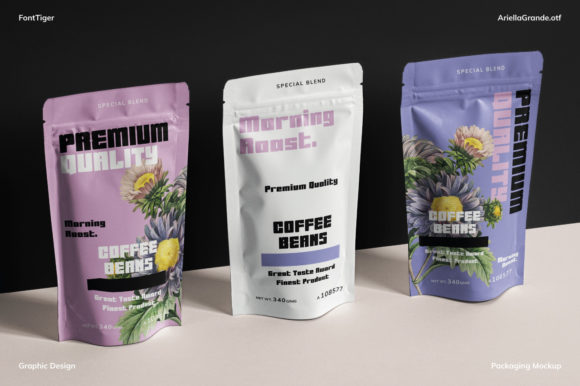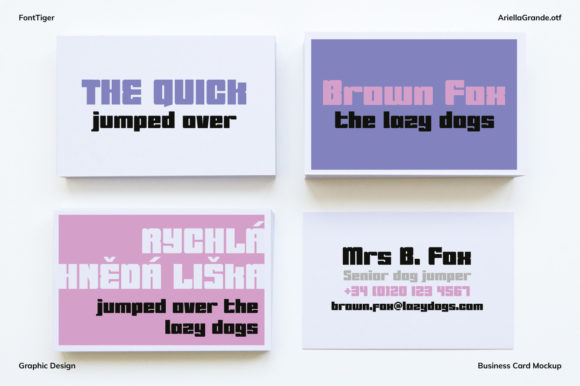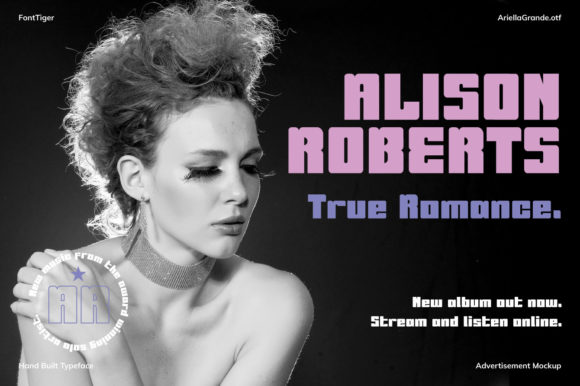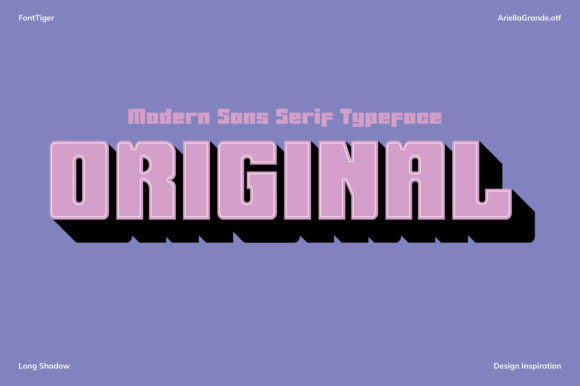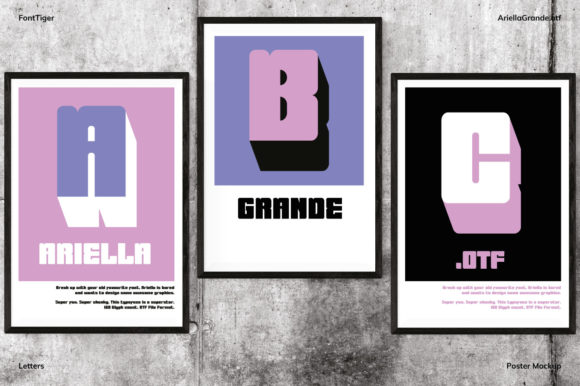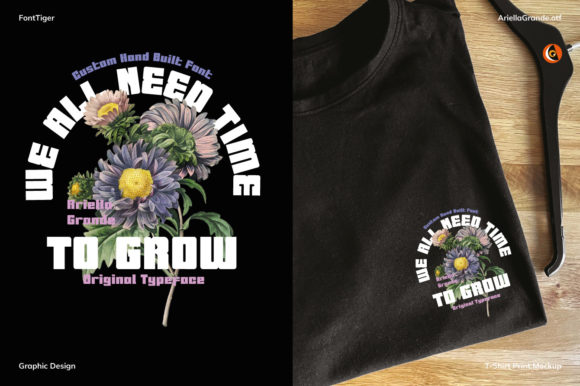
Ariella Grande Font: Unleashing Bold and Edgy Typography
In the realm of typography, fonts play a crucial role in conveying messages, expressing emotions, and creating visual identities. Among the vast array of fonts available, Ariella Grande stands out as a bold and edgy font that embodies a wild attitude. This contemporary font is designed to push boundaries and challenge traditional representations of letters, numbers, and glyphs.
The Birth of Ariella Grande
Ariella Grande is a relatively new font that has quickly gained popularity among designers and crafters. Its creator aimed to craft a font that not only captures attention but also exudes confidence and a sense of rebellion. The result is a font that is both modern and fearless, making it perfect for projects that require a bold statement.
Key Features of Ariella Grande
Ariella Grande boasts several key features that set it apart from other fonts:
- Bold and Edgy Design: The font’s bold and edgy design makes it perfect for headlines, titles, and emphasis text.
- Contemporary Representations: Ariella Grande features new and innovative representations of letters, numbers, and glyphs, giving it a fresh and modern look.
- Wild Attitude: The font’s wild attitude makes it ideal for projects that require a sense of rebellion or nonconformity.
- High Versatility: Ariella Grande can be used in a wide range of projects, from branding and advertising to packaging and digital media.
Use Cases for Ariella Grande
Ariella Grande’s versatility makes it suitable for various design projects, including:
- Branding and Logo Design: The font’s bold and edgy design makes it perfect for creating striking logos and brand identities.
- Advertising and Marketing: Ariella Grande’s attention-grabbing design is ideal for creating effective advertisements and marketing materials.
- Packaging Design: The font’s modern and fearless attitude makes it suitable for packaging design, particularly for products that require a bold and eye-catching appearance.
- Digital Media: Ariella Grande can be used in digital media, such as video games, mobile apps, and websites, to create a bold and engaging user experience.
Tips for Using Ariella Grande
To get the most out of Ariella Grande, consider the following tips:
- Use it Sparingly: Due to its bold and edgy design, Ariella Grande works best when used sparingly, such as for headlines or emphasis text.
- Pair it with Neutral Fonts: Pair Ariella Grande with neutral fonts to create visual contrast and balance.
- Experiment with Colors: The font’s bold design makes it perfect for experimenting with bright and bold colors.
Ariella Grande is a bold and edgy font that is sure to make a statement in any design project. Its contemporary representations of letters, numbers, and glyphs, combined with its wild attitude, make it a versatile and attention-grabbing font. Whether you’re a designer or crafter, Ariella Grande is definitely worth considering for your next project.